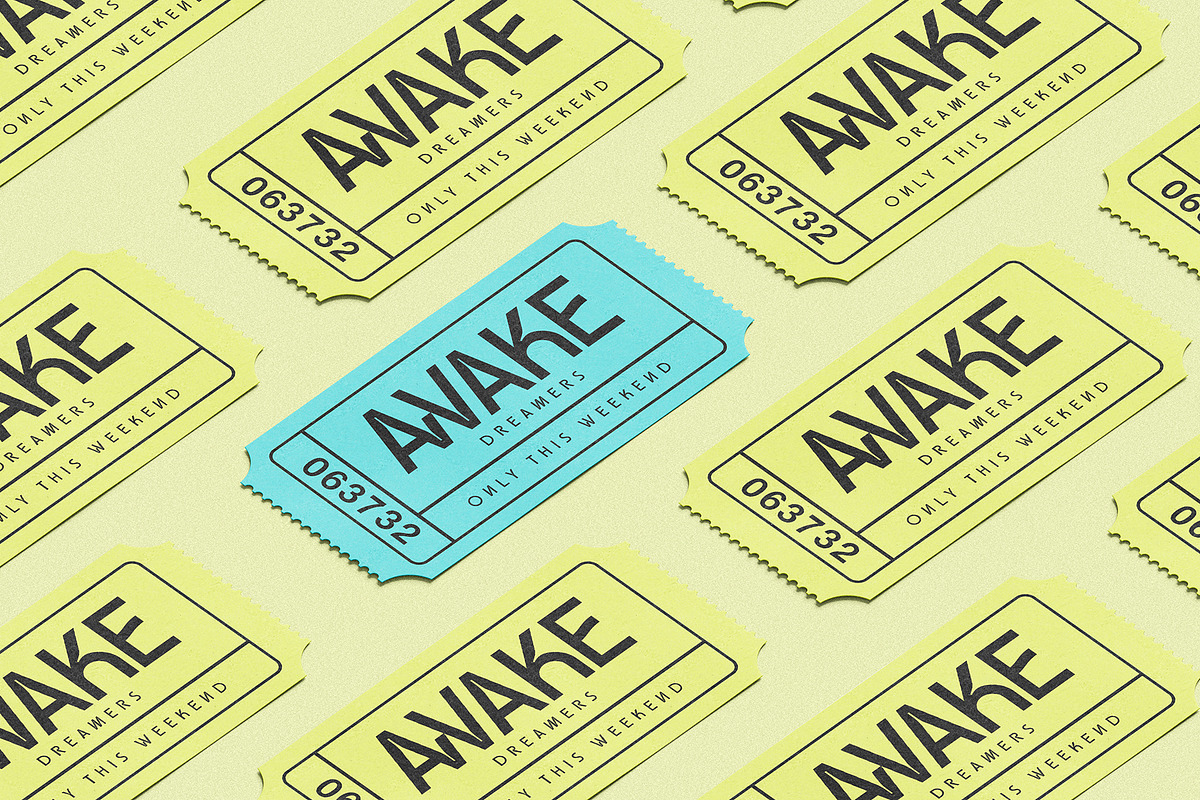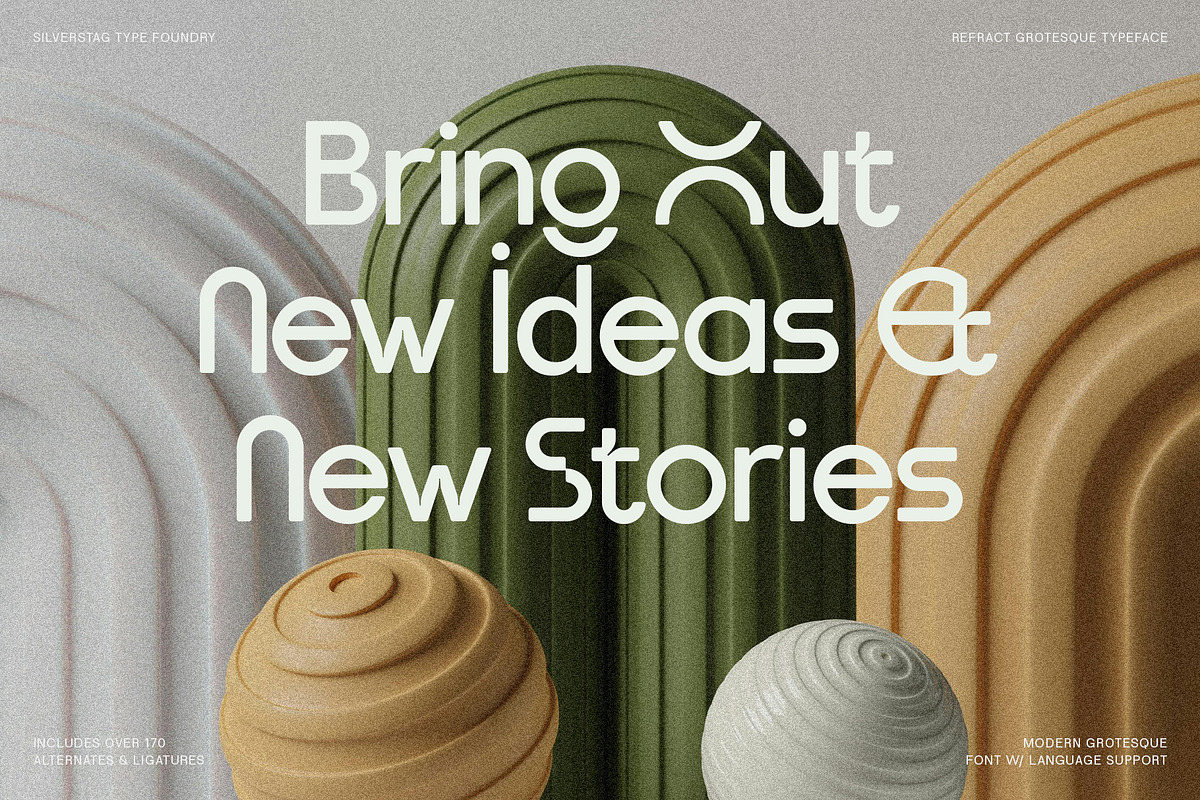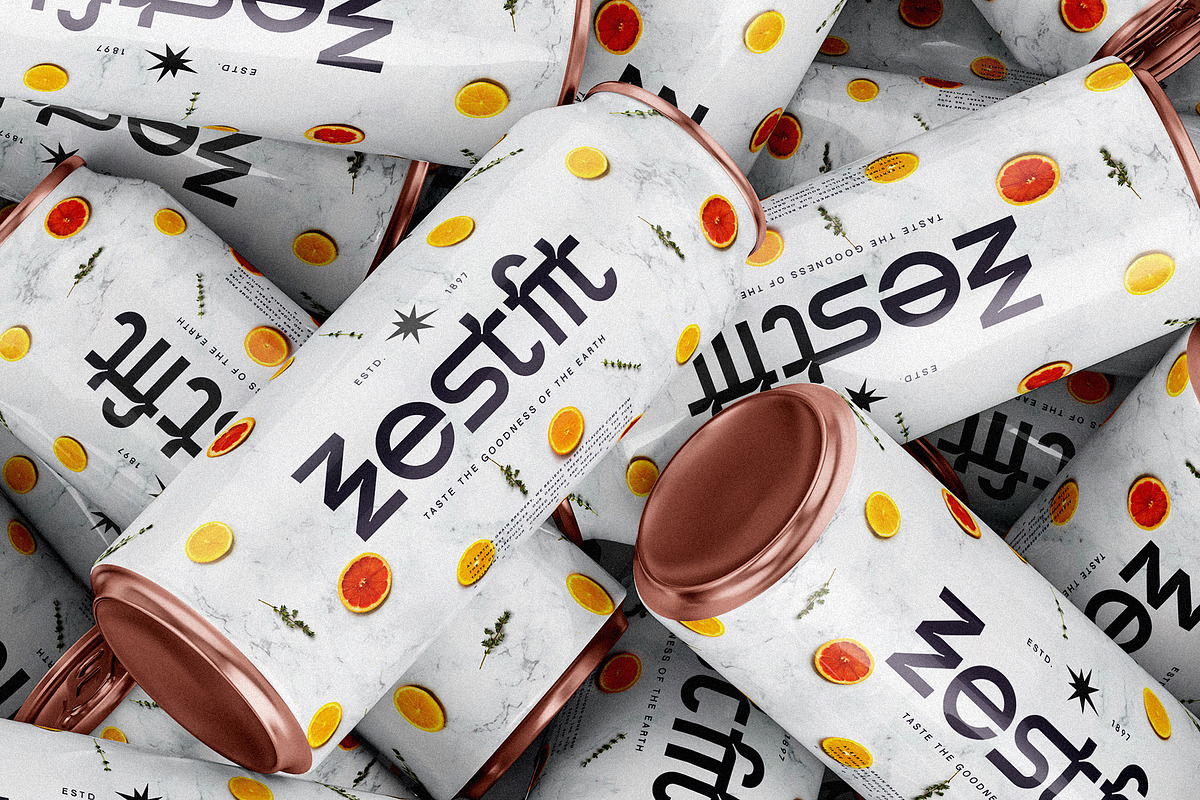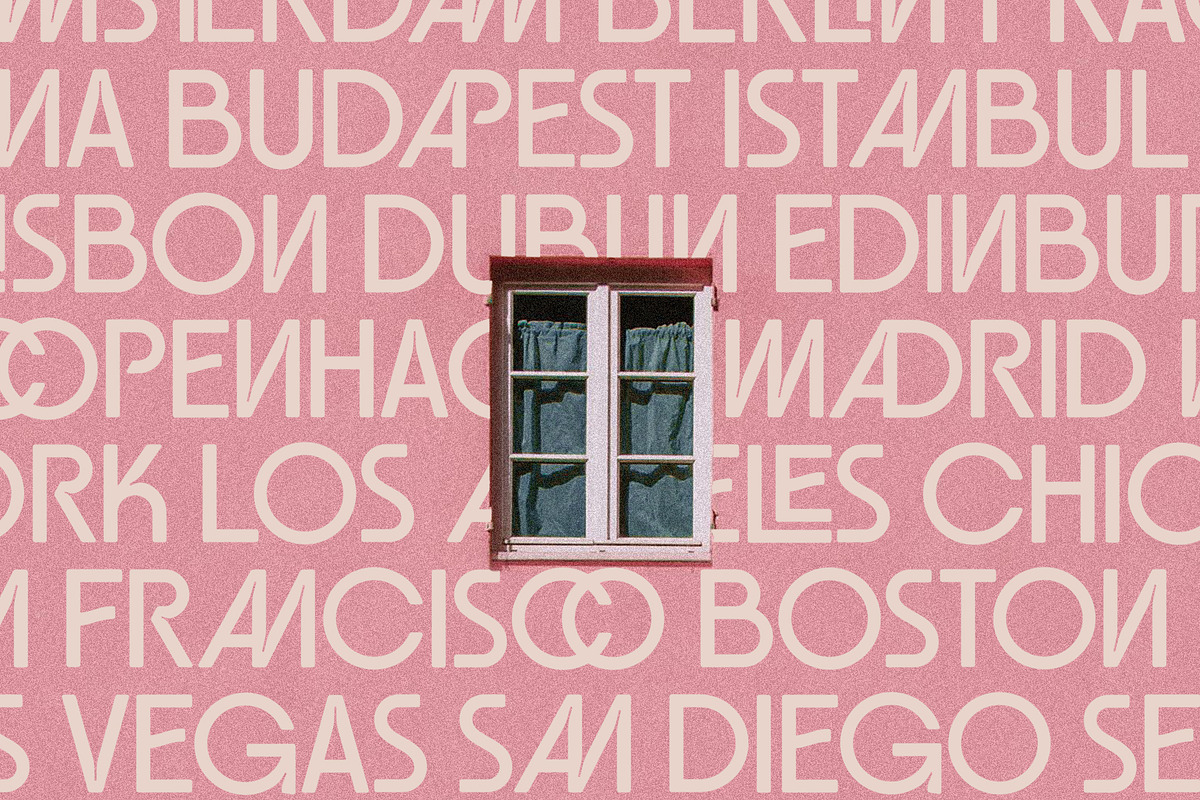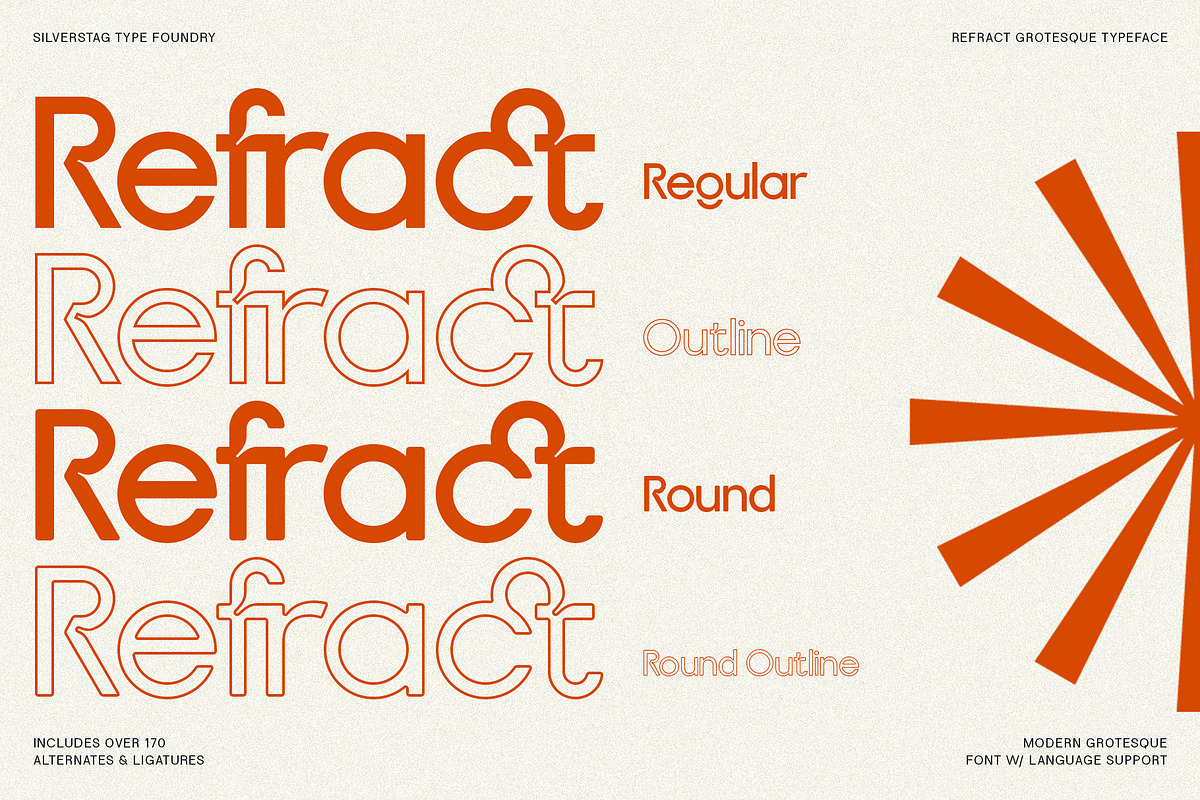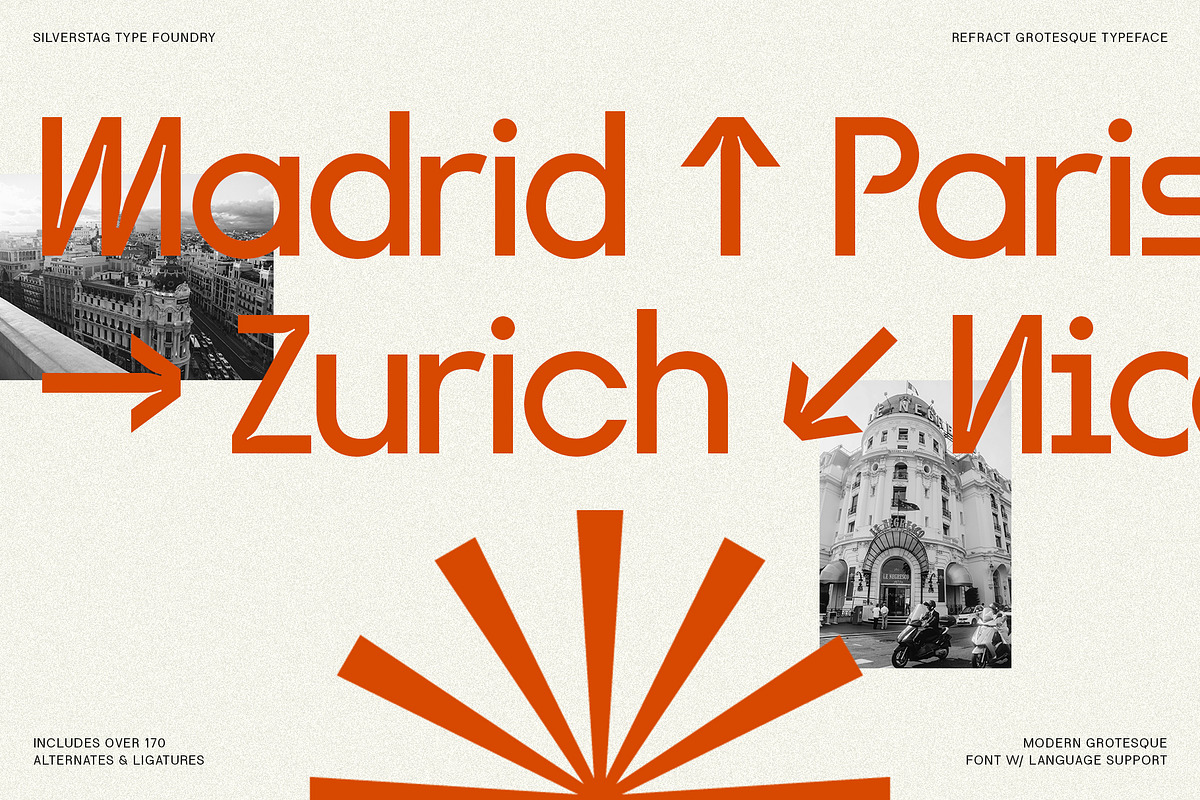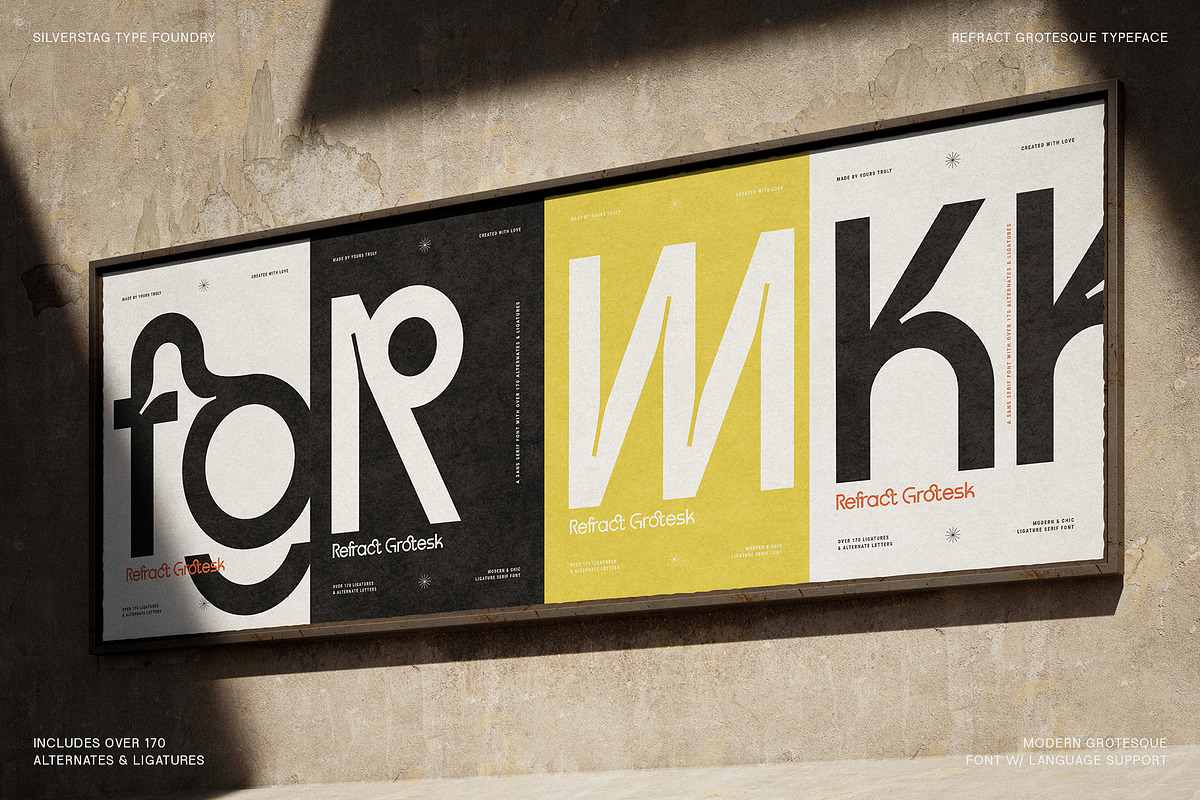
Refract - Edgy Grotesque Font Family
Refract - Edgy Grotesque Font Family by SilverStag Type Foundry is a font selected for branding, posters, packaging, typography.
- With over 170 alternates and ligatures, it provides endless possibilities for customization and expressive typography.
- With three sets of uppercase letters and two sets of lowercase letters across all styles, Refract empowers you to craft unique and captivati
- The fonts are packed with alternates, ligatures and some even come with extra goodies.
- Refract Regular
- Refract Regular Outline
- Refract Round
- Refract Round Outline
Why Refract - Edgy Grotesque Font Family is worth a look
Refract - Edgy Grotesque Font Family by SilverStag Type Foundry fits naturally into Branding, posters, packaging, typography.